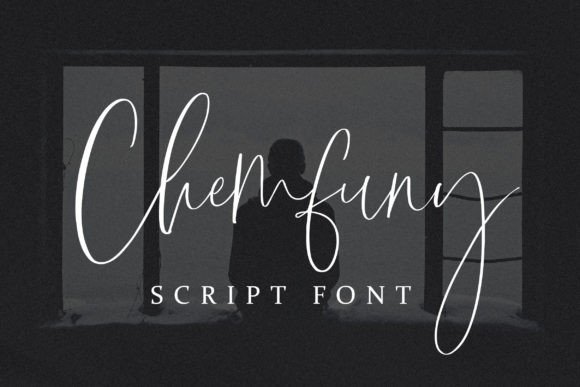
Introducing Chemfuny, the latest addition to our font collection! Created by Bellinghamtype, this exquisite script font is perfect for those seeking a touch of elegance and refinement in their design projects.
With its delicate curves and graceful flourishes, Chemfuny exudes a sense of effortless style and sophistication that is sure to captivate your audience. Whether you're designing a wedding invitation, a business card, or a logo, this font is perfect for adding a touch of class to any project.
One of the unique features of Chemfuny is that it is PUA encoded, which means you can access all glyphs and swashes with ease. This allows you to create truly unique and personalized designs that will set you apart from the rest.
But Chemfuny is more than just a font. It's an experience that will transport your audience to a bygone era of elegance and refinement. It's a font that will make your designs stand out from the crowd and leave a lasting impression on your audience.